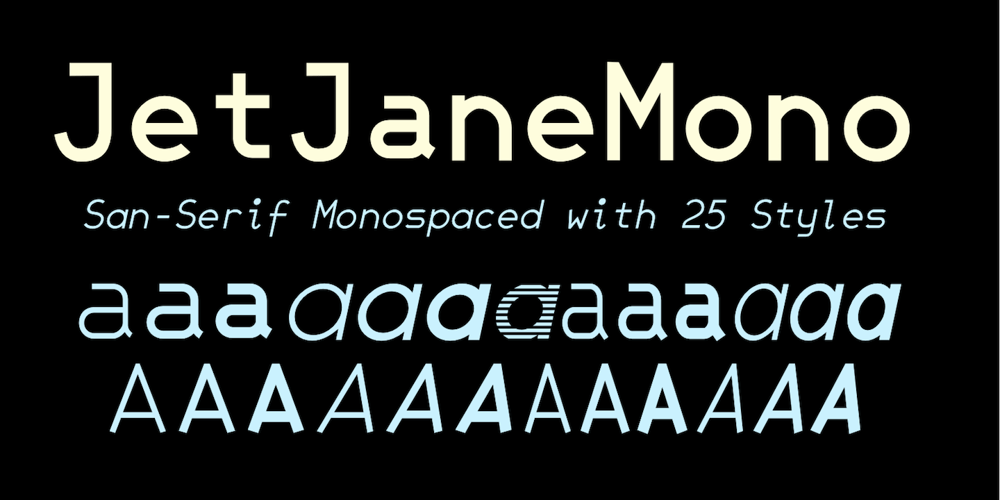
JetJaneMono Font Family was designed by Robert Schenk and published by Ingrimayne Type. JetJaneMono contains 21 styles and family package options. JetJaneMono is a large family of sans-serif faces which are monospaced. It is very plain (plain=plane=jet).The font family has two widths and three weights, with each upright style paired with an italics style. These twelve fonts are then duplicated with another set in which small caps replace the lower-case letters. The typeface was created in 1994 and in 2021 the condensed widths were added.